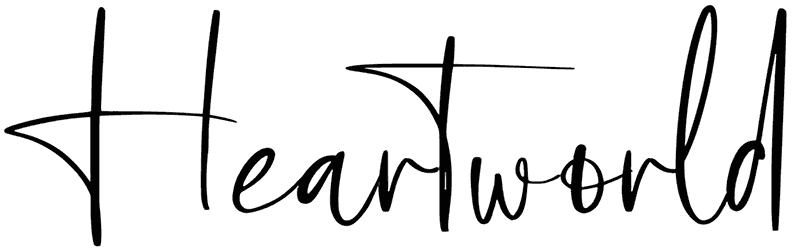
Heartworld Font
Greet your audience with luxury style and display a memorable design with this calligraphy font. Heartworld has a casual and chic face that is capable of adorning various creative layouts. This handwritten font can make your words delicate and will be a perfect item for designs, namely greeting cards, planners, invitations, and other kinds of stuff.